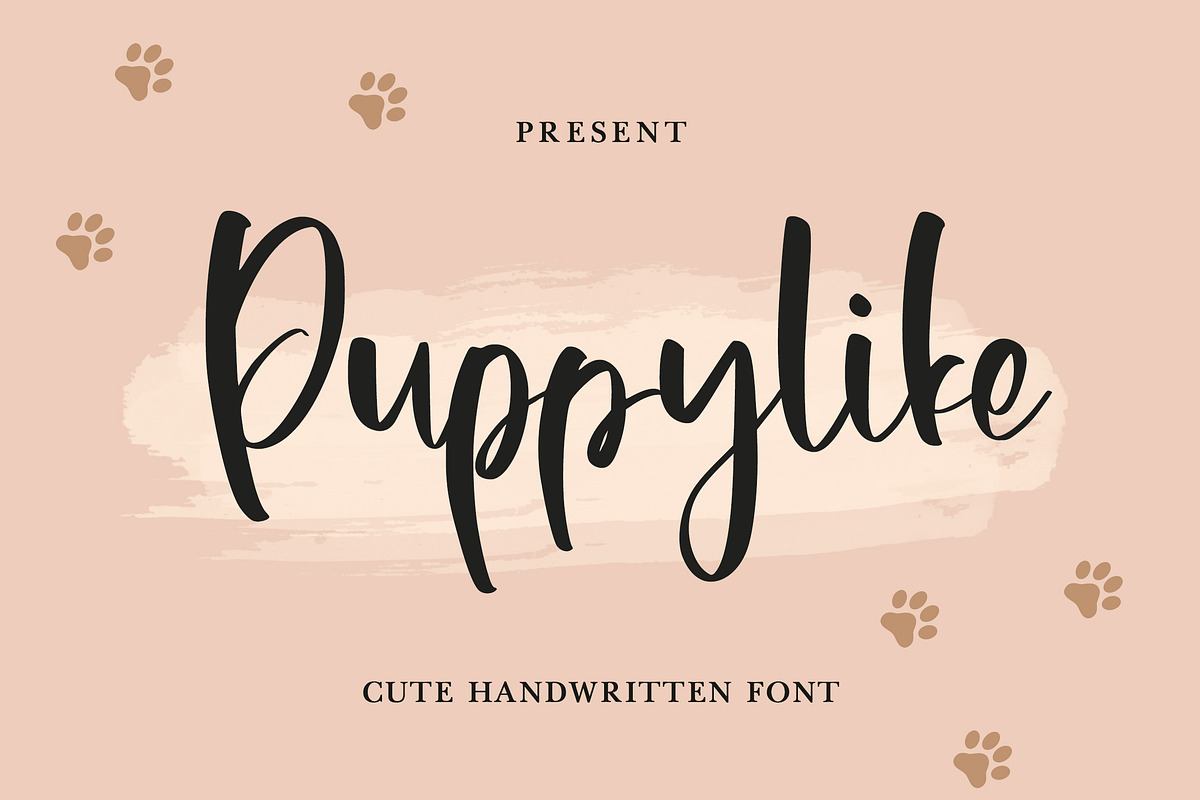
Puppylike - Cute Handwritten Font Free Download
Puppylike - Cute Handwritten Font Free Download is a playful and adorable handwritten typeface that brings warmth and personality to your designs. Featuring round, friendly letterforms, this font is perfect for projects targeting a younger audience or anything that needs a cute, approachable vibe, such as children's books, greeting cards, branding, logos, and social media graphics.
Puppylike - Cute Handwritten Font Free Download exudes charm and character, making it ideal for creative and fun designs. Whether you're working on a playful brand, a fun event invitation, or any design that calls for a lighthearted and friendly tone, this font adds a personal, handwritten feel.